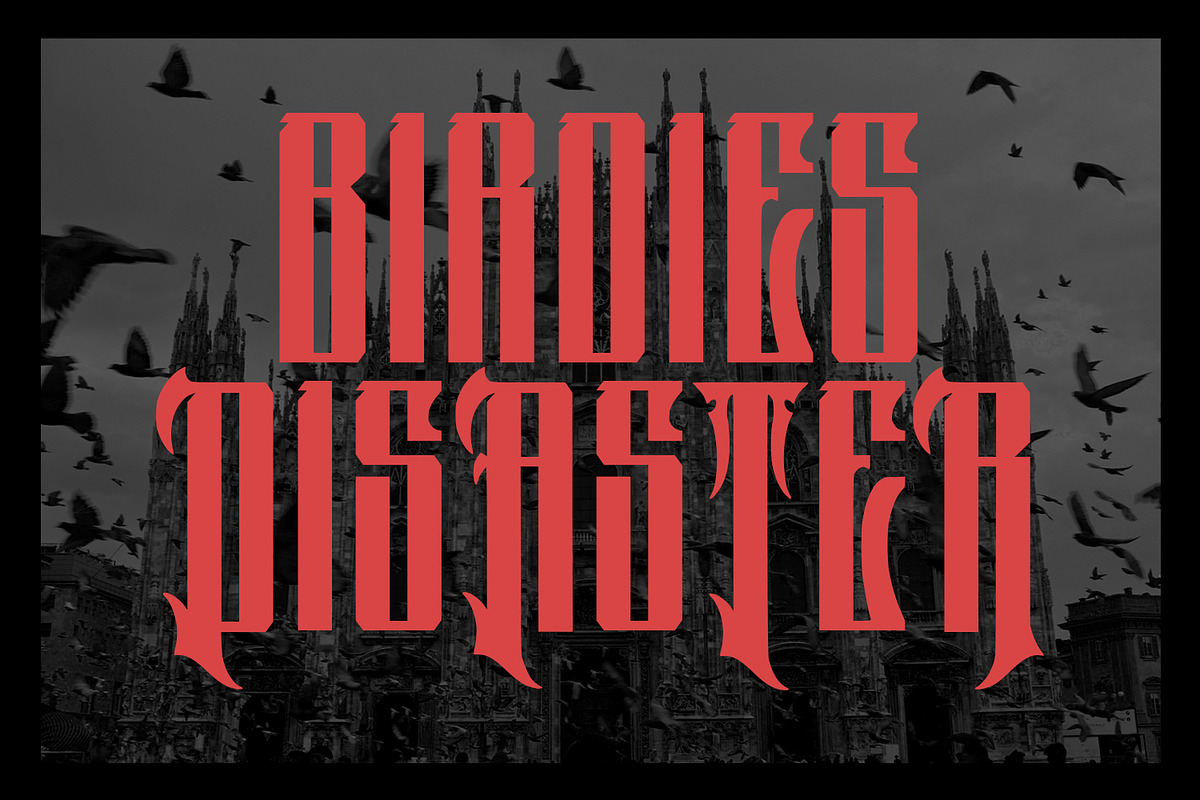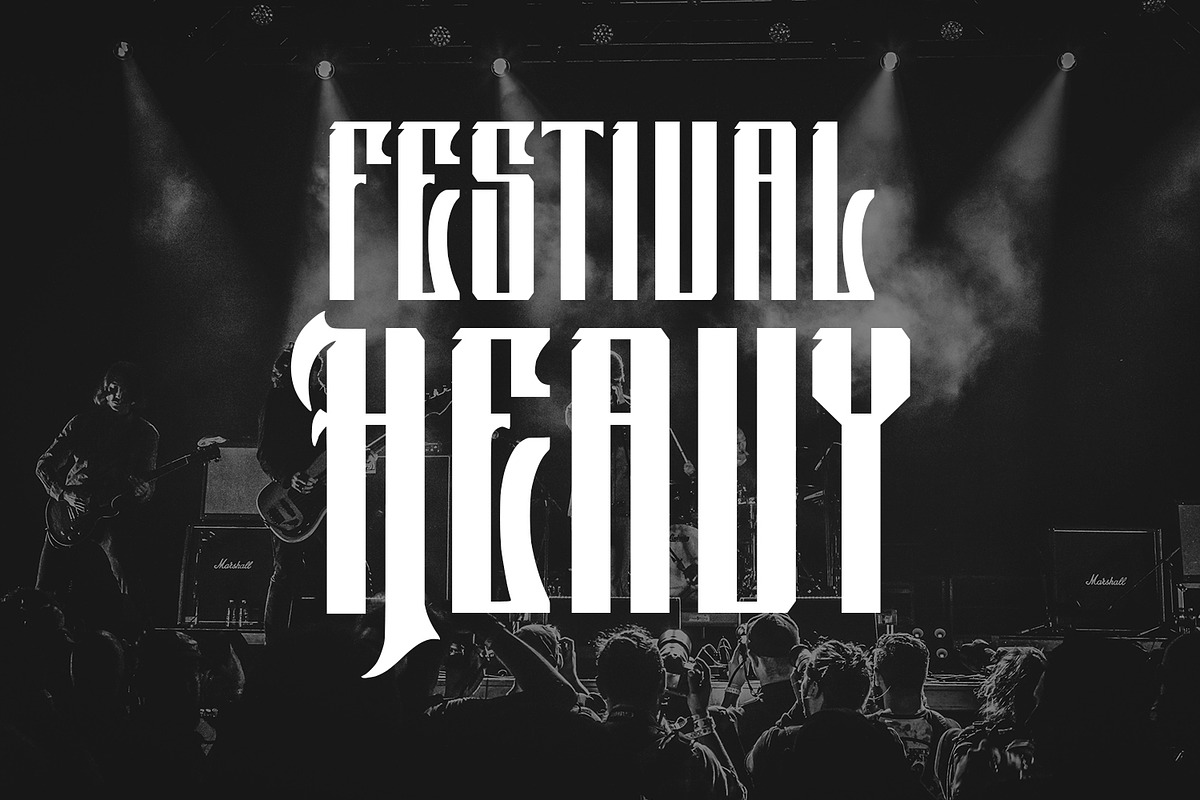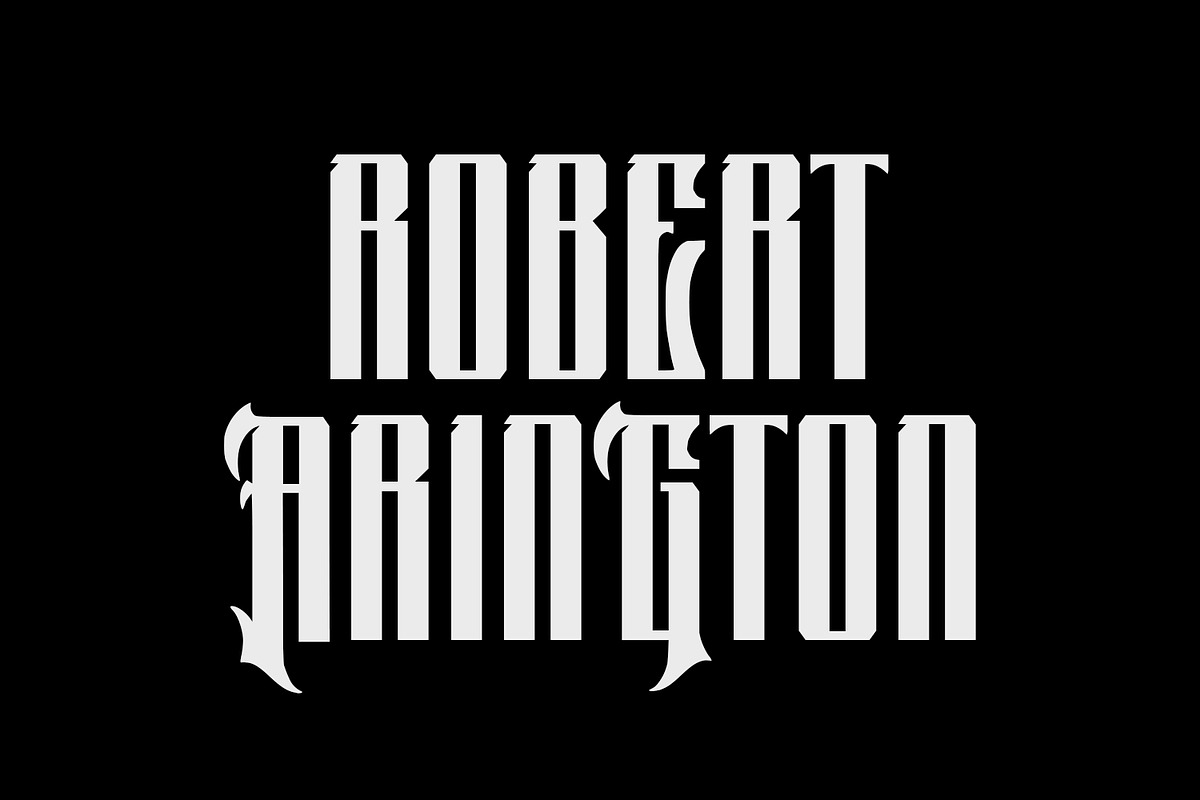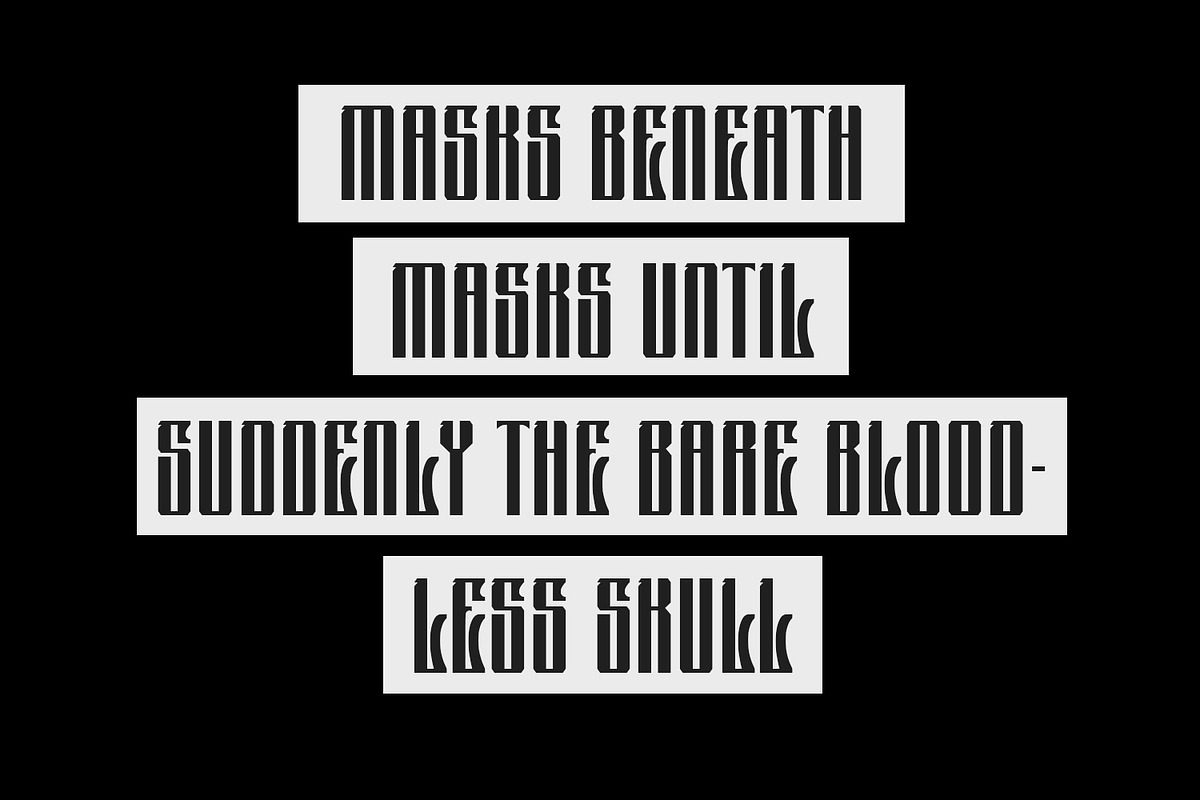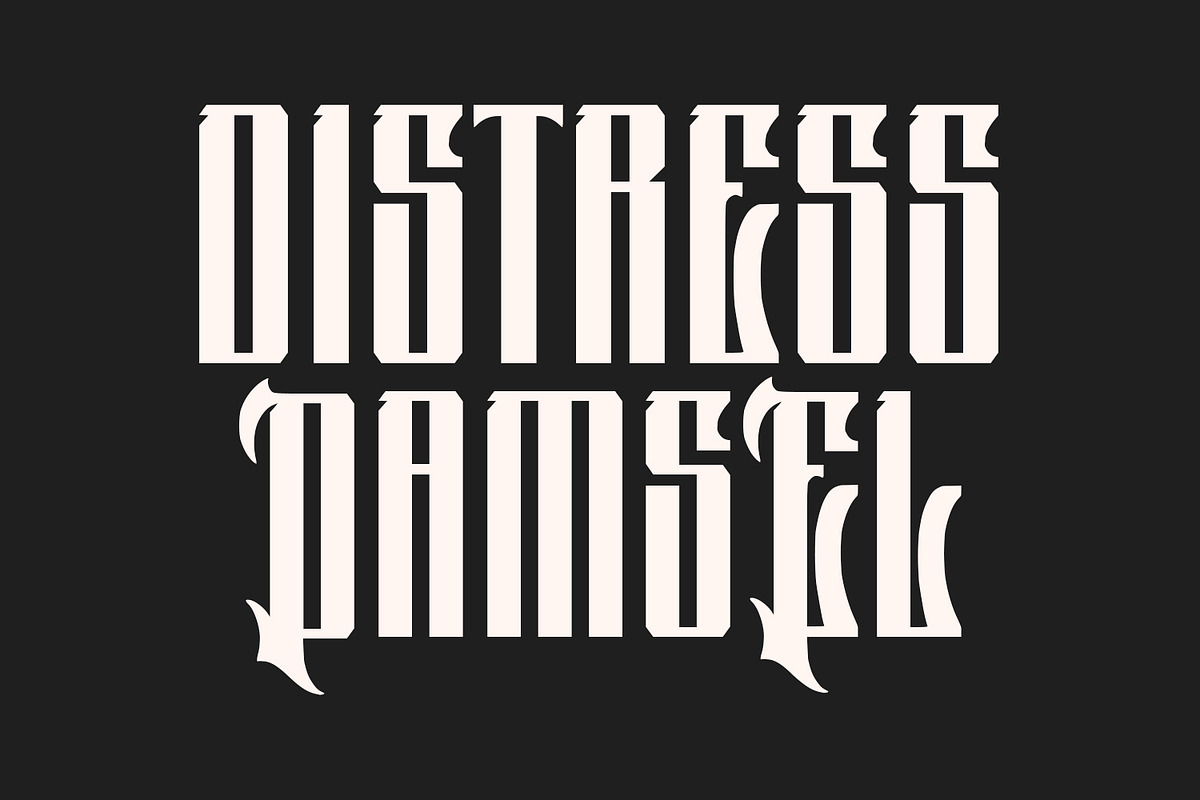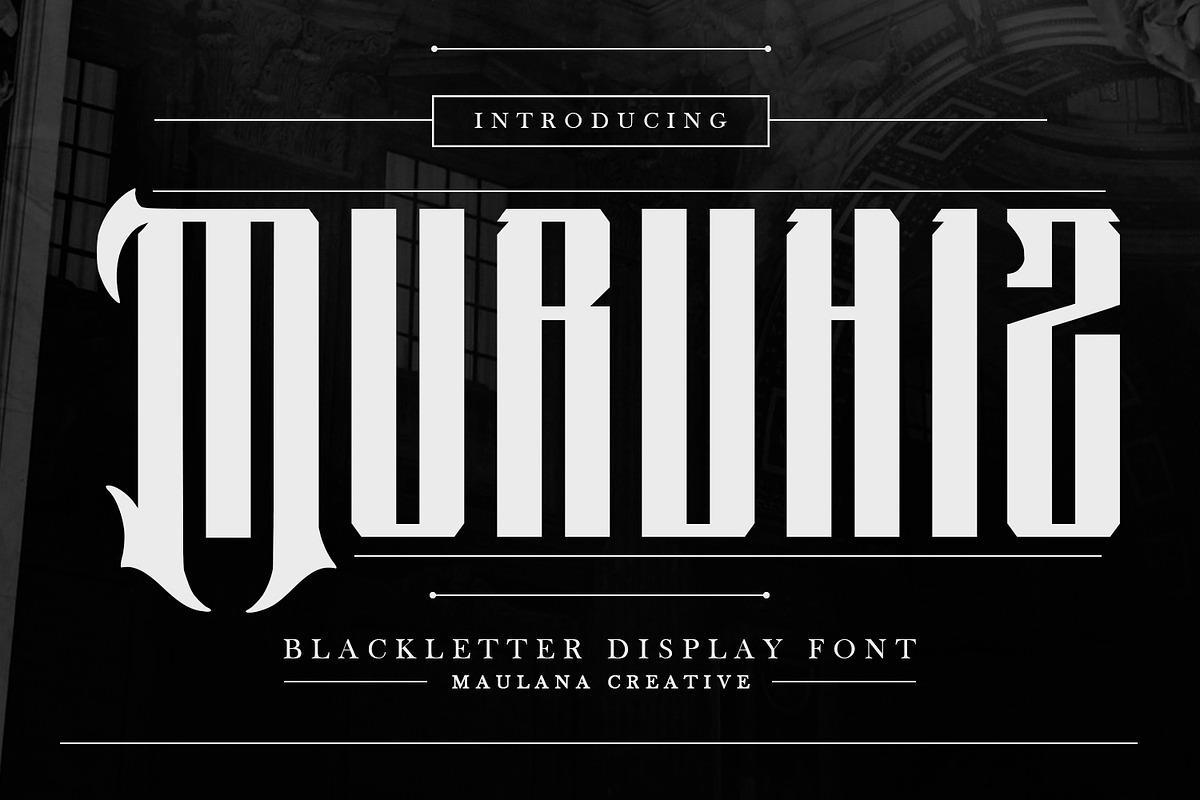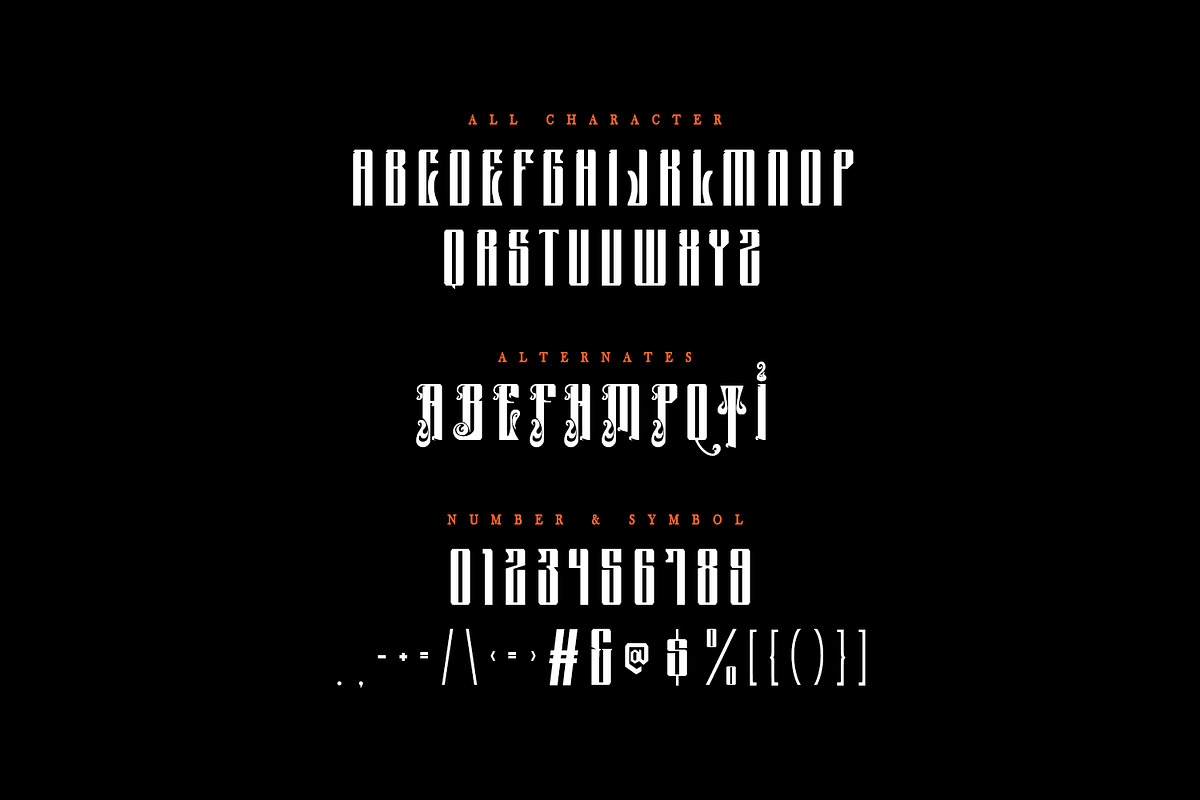
Murvhiz Blackletter Display Font
Murvhiz blackletter display font. Heavy stroke, vintage character with a awesome alternates. To give you an extra creative work. Murvhiz display font support multilingual language. This font is good for logo design, Social media, Movie Titles, Books Titles, a short text even a long text letter and good for your secondary text font with script or serif. Make a stunning work with Murvhiz blackletter display font.